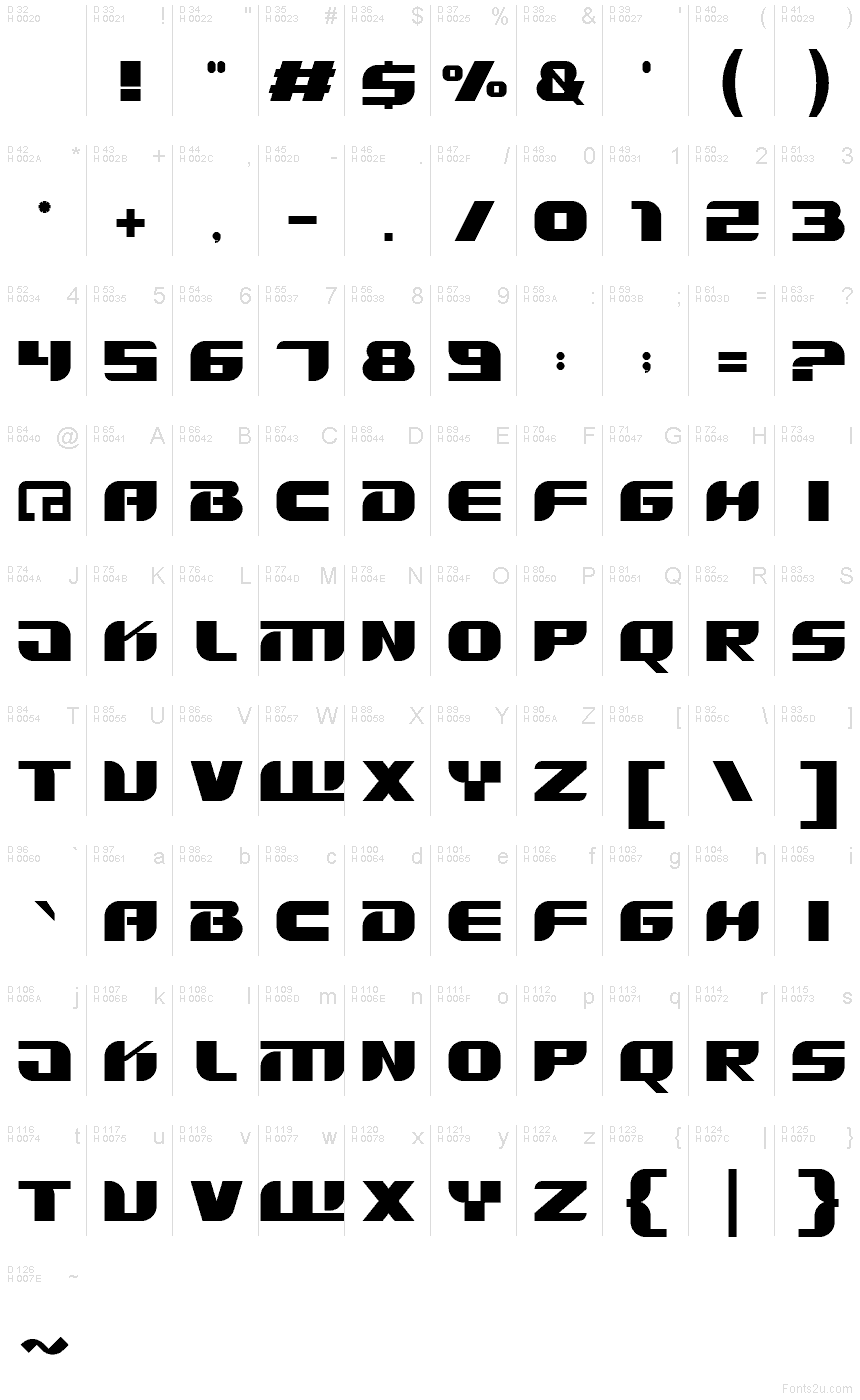
Lixdu
Lixdu font by Farhan Arsyadi is a free bold futuristic display font. Built around chunky, modular shapes and razor-clean cuts, it fuses squared shoulders with smooth inner curves for a machined, sci‑fi feel. The wide stance and tight rhythm create a strong pulse, while those clipped joints and interlocking diagonals give it a distinct, high-tech signature that reads instantly at a glance.
Using Lixdu, headlines hit hard on sci‑fi logos, esports branding, tech event posters, gadget packaging, UI hero banners, and automotive decals. This free font thrives oversized with a touch of extra tracking. For balance, pair it with a light, neutral grotesk to let Lixdu’s bold geometry shine without visual noise.